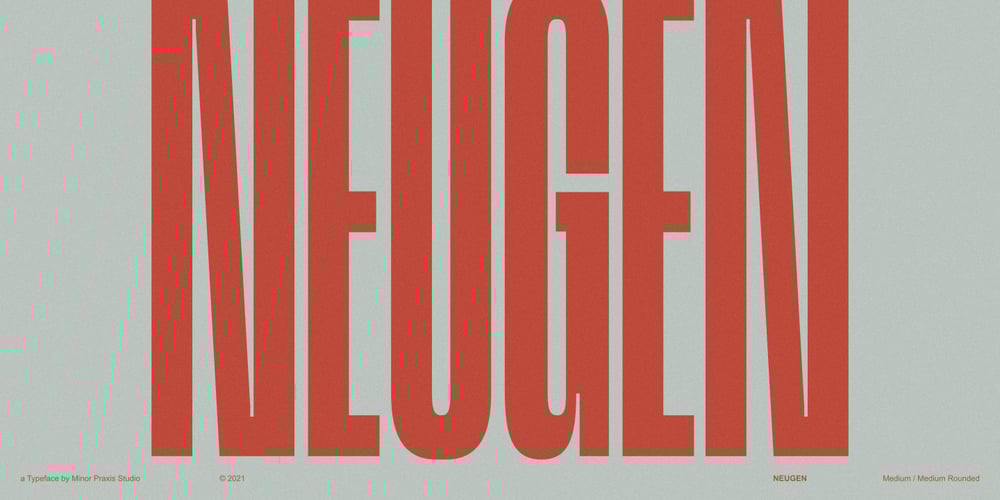
Neugen Font Family was designed by Rully Prayogi and published by Minor Praxis. Neugen contains 2 styles and family package options. Inspired by retro movies and theatre display design. A very condensed font made by Minor Praxis. Perfect for headlines, tall-format prints, posters, and displays which can utilize space of a medium.Neugen is a condensed type of font with a very dense kern. Give a strong impression which can be matched with basic sans serif fonts as a body copy that can make it more casual and modern looks.Available in medium and medium-rounded style with multi languages support. Ligatures, alternates, and stuff like icons and symbols.